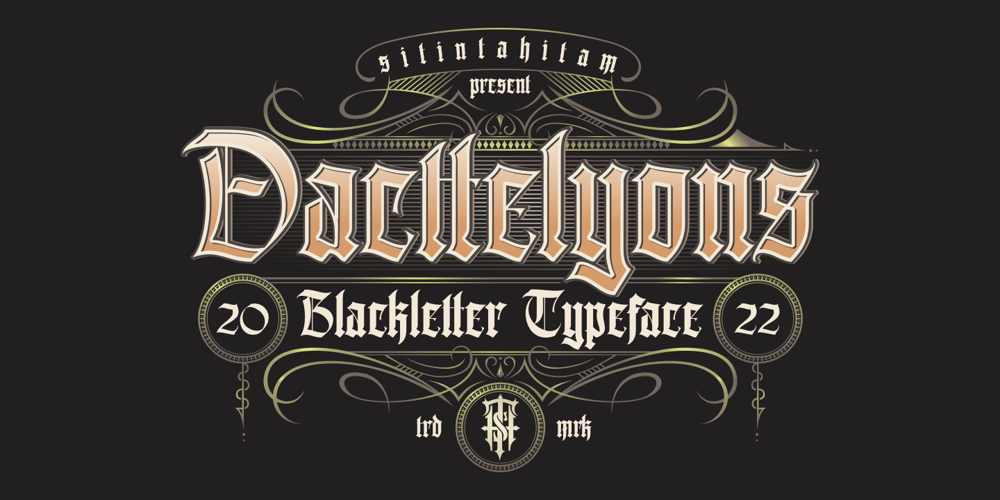
Dacttelyons Font Family was designed by Hasto Nugroho and published by Sitintahitam. Dacttelyons contains 1 styles and family package options. Dacttelyons is a blackletter typeface inspired by gothic era, and this typeface perfect for people looking for vintage with dark feel. Dacttelyons suitable for any graphic designs such as branding materials, t-shirt, print, logo, poster, packaging .etcADDITIONAL INFORMATIONFor upgrading license please contact me. Upgraded licenses are required for apps, books, television, commercial exhibition, film, gaming, print on demand products, etc. simply email me to : hastohst@gmail.comWe hope you enjoy the font, please feel free to comment if you have any thoughts or feedback. Thanks for purchasing and have fun!Cheers 🍻